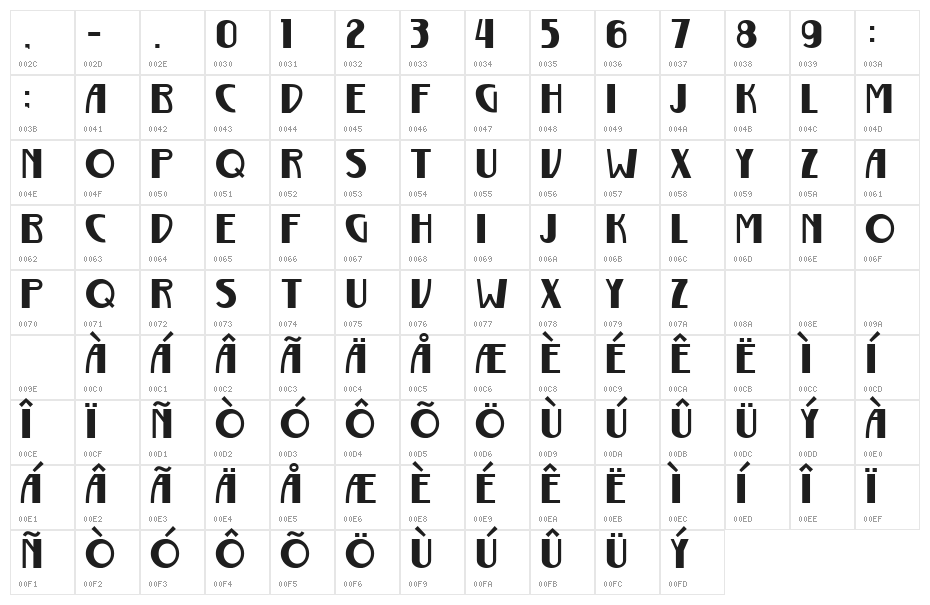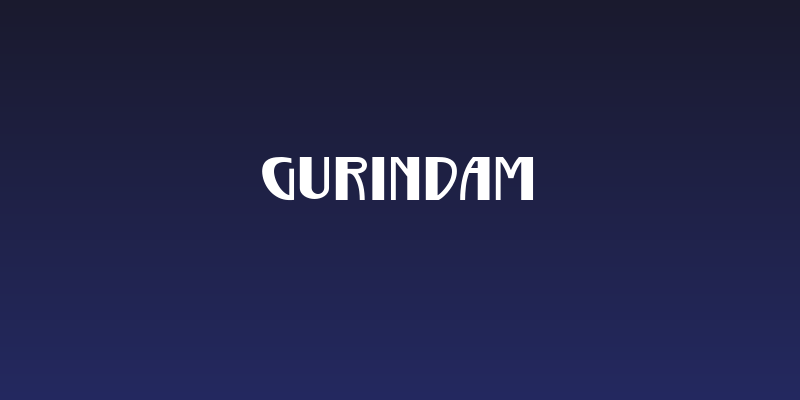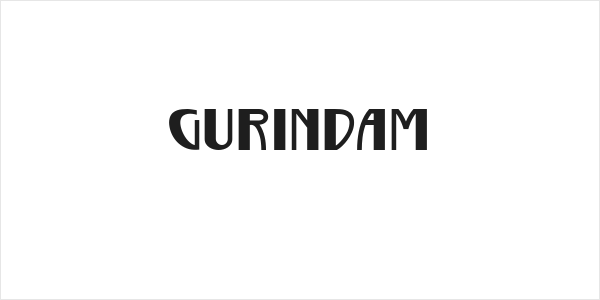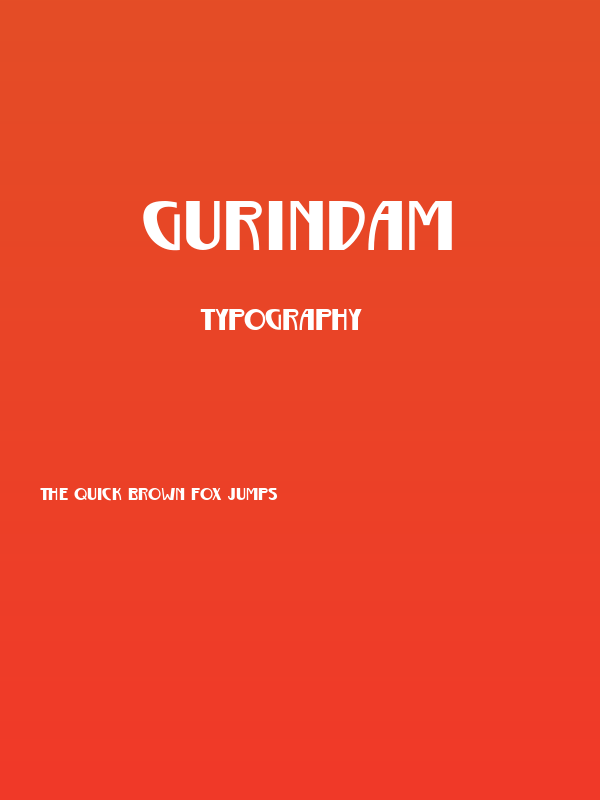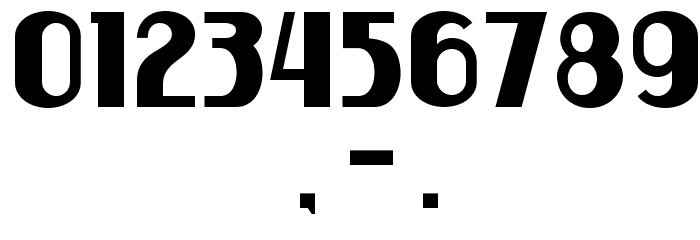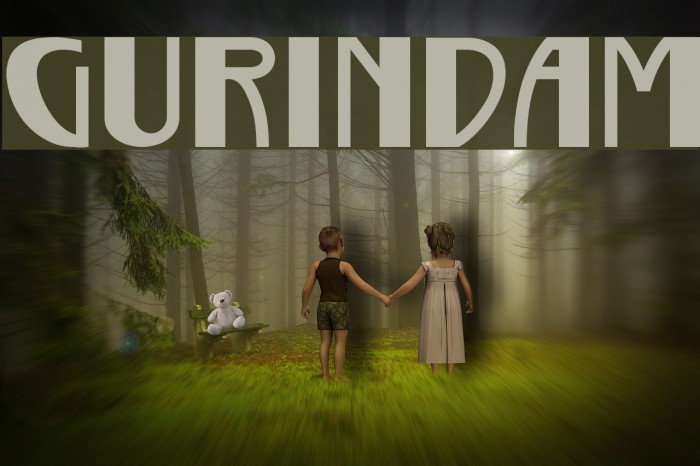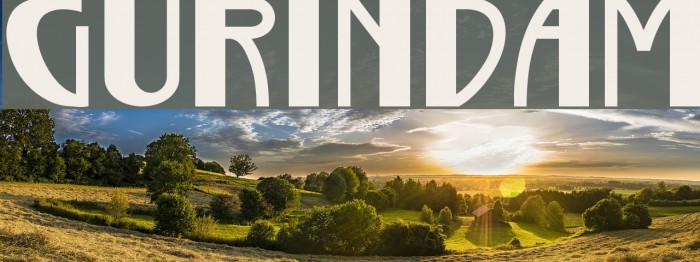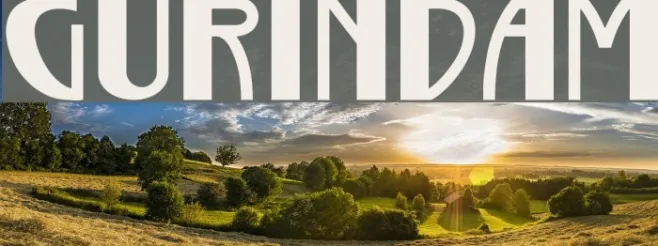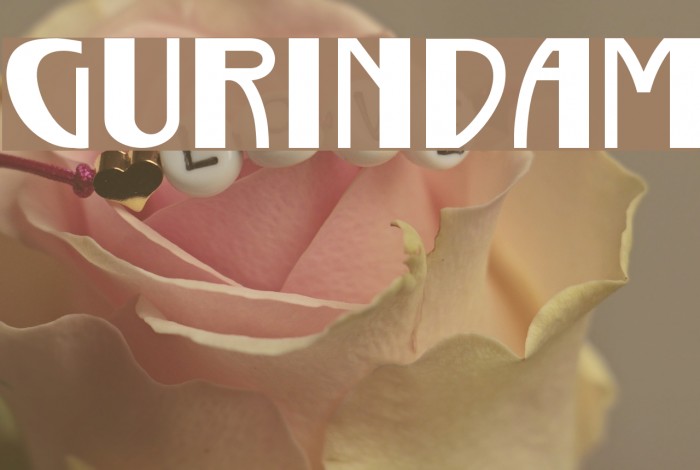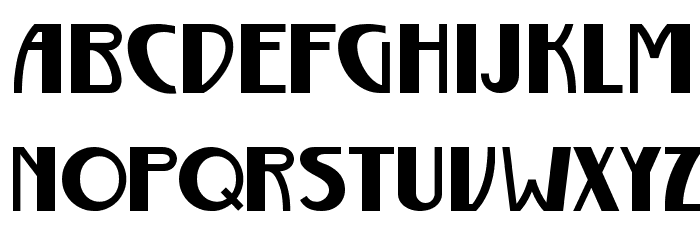
Gurindam Font
Gurindam Description
This font features a bold and striking design with a modern flair. The characters are crafted with a unique blend of sharp angles and smooth curves, creating a dynamic and eye-catching appearance. The uppercase letters exhibit a strong presence with their thick strokes and geometric shapes, while the lowercase letters maintain a consistent style that complements the uppercase. The numerals are equally bold, ensuring readability and impact. Special characters are designed with the same attention to detail, making them stand out. This font's overall aesthetic is both contemporary and versatile, suitable for a variety of design applications.